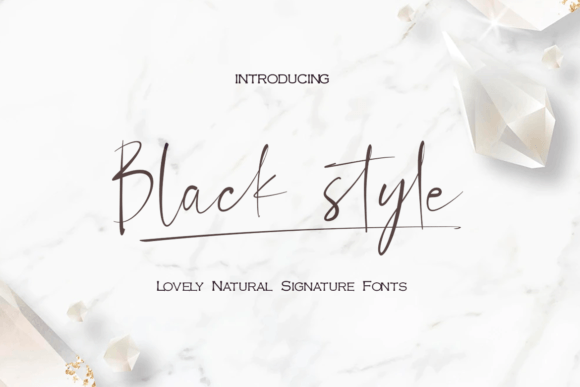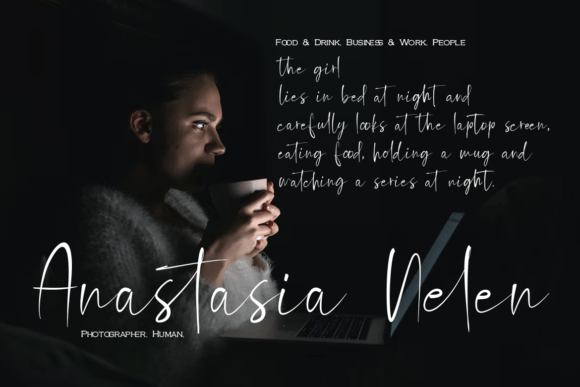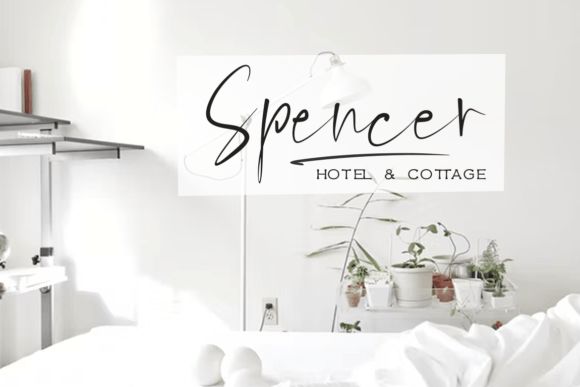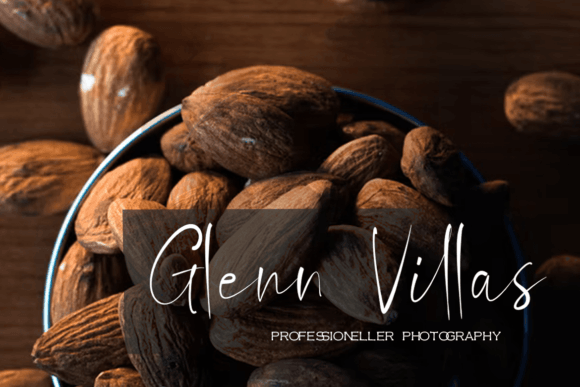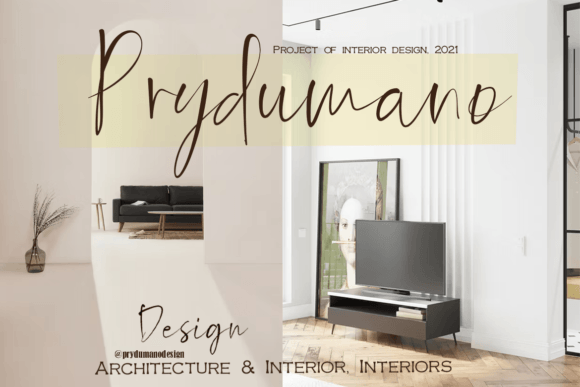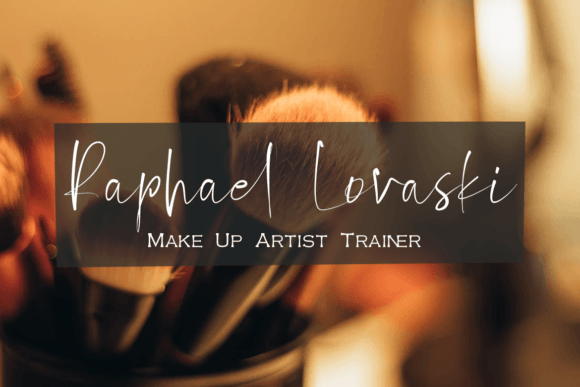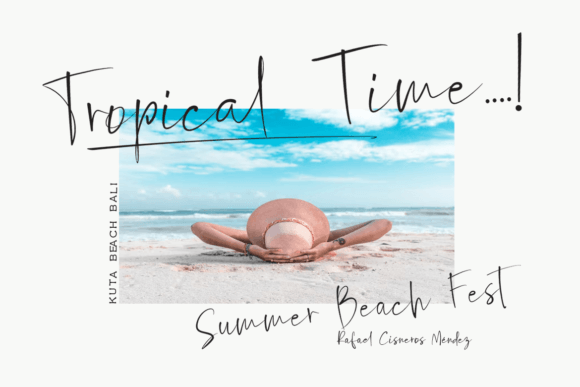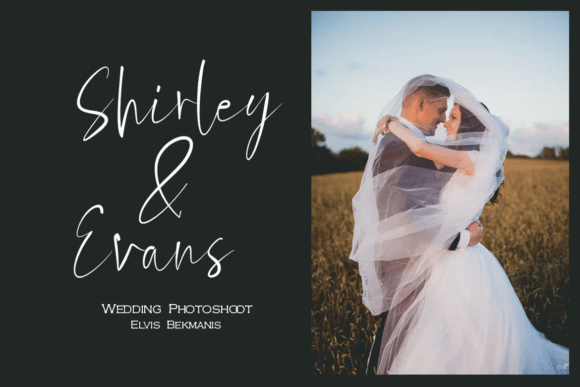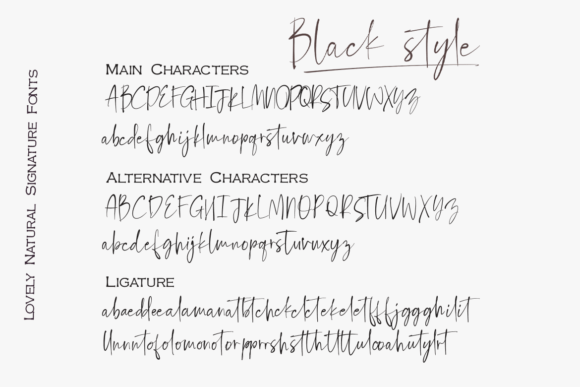
Black Style Font
About Black Style Font
Black Style is a charming signature script font that brings a lovely and natural style to your designs. With its distinctive and elegant flair, this font is perfect for adding a classy touch to a variety of creative projects. Whether you’re working on branding, photography, invitations, quotes, watermarks, advertisements, labels, or more, Black Style is designed to elevate and enhance your designs.
The natural and signature-style qualities of Black Style are evident in its fluid and expressive letterforms. The font captures the essence of handwritten signatures, providing a personal and sophisticated touch to your projects. Its versatility makes it suitable for a wide range of applications, allowing you to infuse a sense of elegance into your creative endeavors.
Whether used for branding to create a memorable logo, adding a personal touch to photography, or enhancing the beauty of invitations and quotes, Black Style adds a level of class and refinement to your designs. Its graceful and flowing characters make it an excellent choice for creating visually appealing watermarks, advertisements, labels, and more.
Incorporate Black Style into your design toolkit and experience how it enhances the overall aesthetics of your projects. Let this lovely signature script be the font that brings a touch of sophistication and elegance to your branding and creative endeavors.